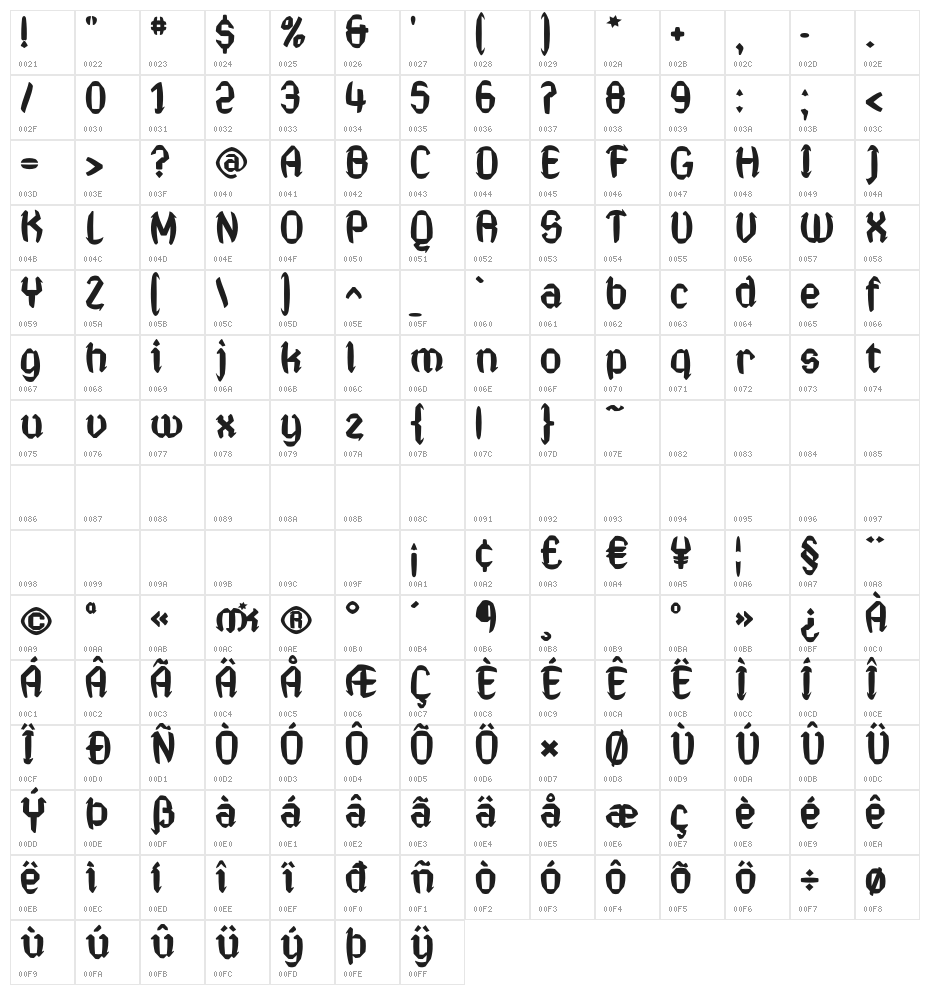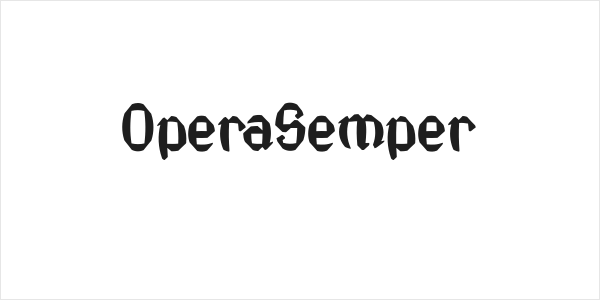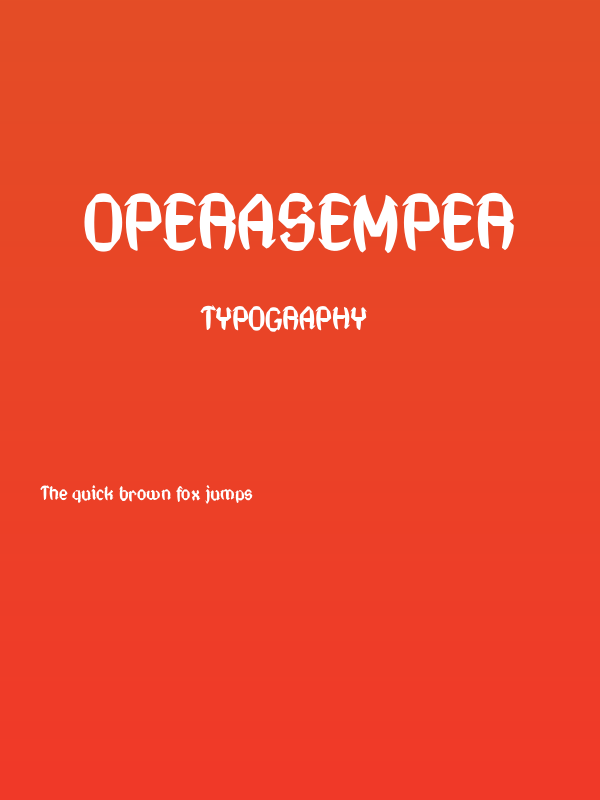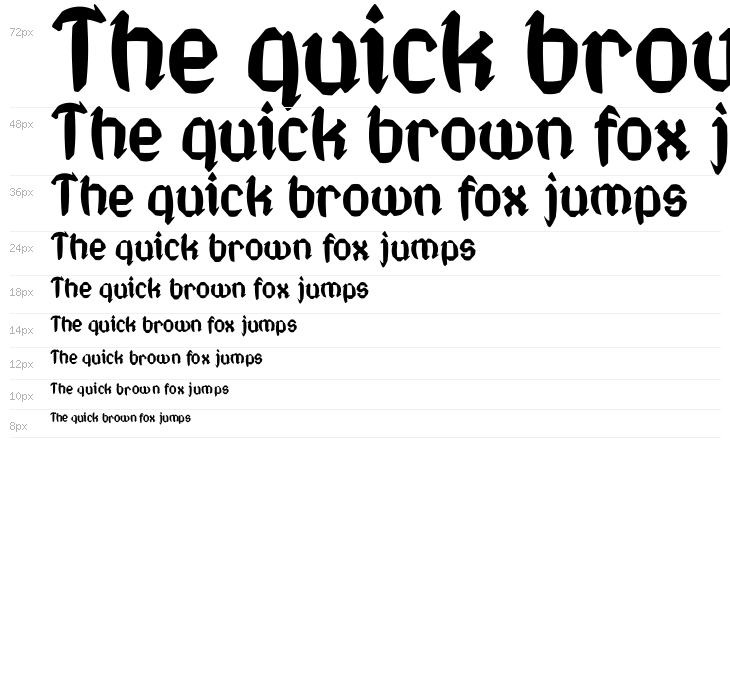
OperaSemper Font
OperaSemper Description
This font features a bold and dramatic style with sharp, angular edges and a distinct Gothic influence. The uppercase letters are particularly striking, with a strong presence and a sense of grandeur. The lowercase letters maintain the same boldness, ensuring consistency throughout the typeface. Numbers and special characters are designed with the same attention to detail, making them suitable for a variety of uses. The overall appearance is both classic and modern, with a unique flair that makes it stand out.